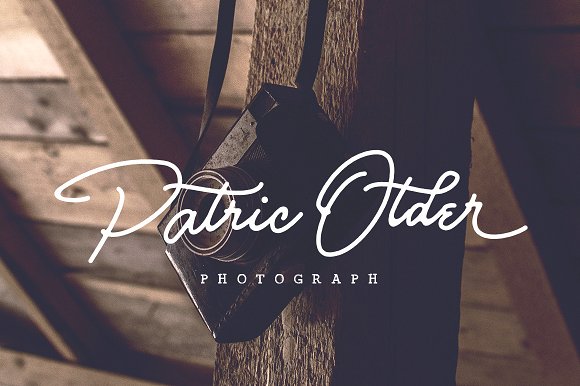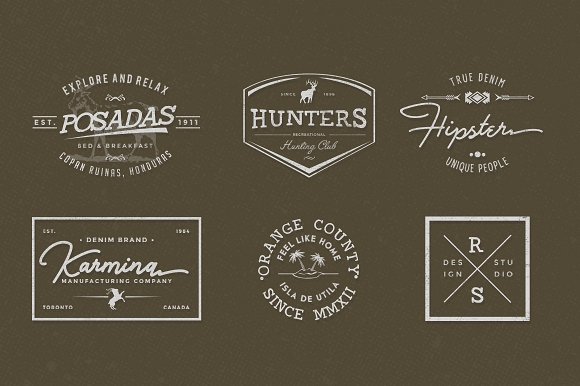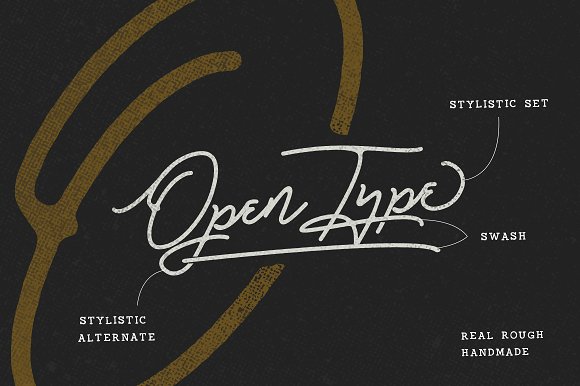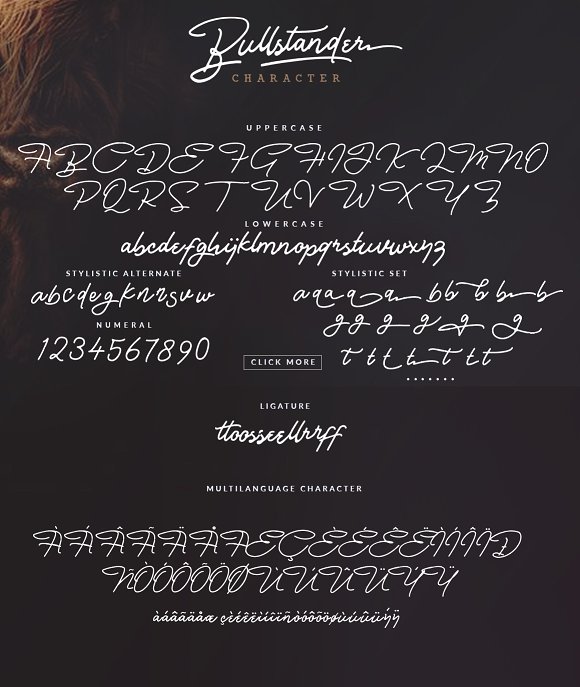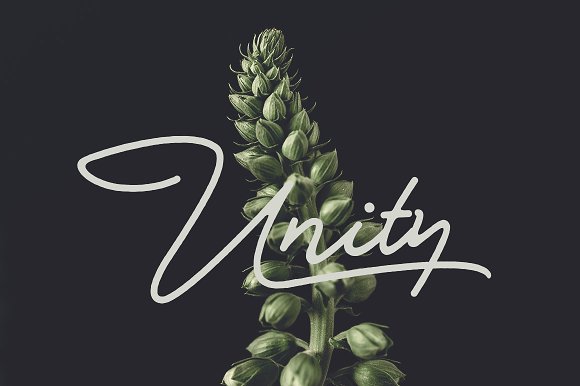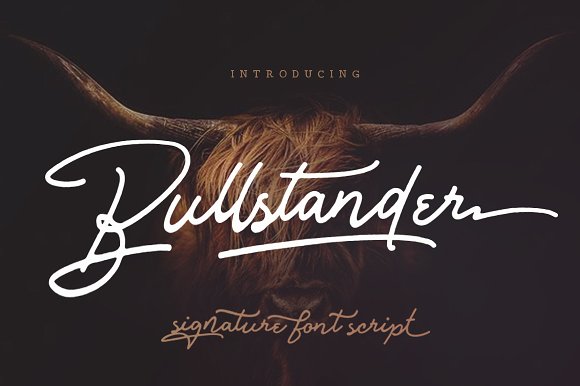
Bullstander 6 Font Set
Proudly presents latest product Bullstander Font Set with 2 different style ‘script and slab’. These two lovely fonts would be perfect to combine in your design. with vintage style. The fonts are great for product logo,wedding card logo, clothing brand logo,Vintage design and much more.